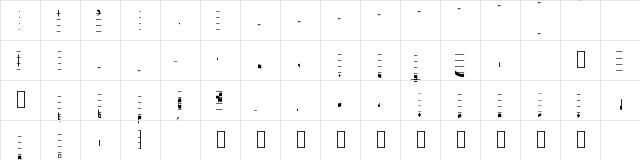
Caeciliae Boldstaff Boldstaff
Design Context for Caeciliae Boldstaff Typeface
Caeciliae Boldstaff is a composed and adaptable typeface that performs quietly and consistently across a wide range of design contexts. The heavy weight commands attention and anchors typographic hierarchies.